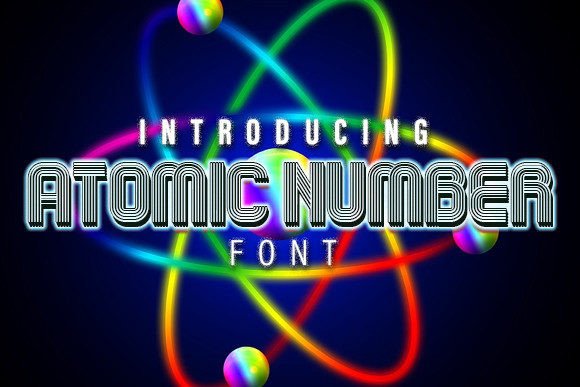
**Introducing Atomic Number: The Font That Will Electrify Your Designs**
Prepare to be mesmerized by Atomic Number, a retro typeface that exudes an electrifying charm. Whether you're crafting captivating posters, eye-catching flyers, or bold banners, Atomic Number is the spark that will ignite your designs.
With its vintage aesthetic and unmistakable style, Atomic Number transports you to an era of scientific exploration and discovery. Each character radiates a nostalgic glow, reminiscent of classic science fiction novels and retro-futuristic gadgets.
**Ignite Your Imagination with Atomic Number**
Step into a realm of limitless creativity with Atomic Number. This font is the perfect companion for:
* **Science enthusiasts:** Captivating readers with scientific articles, posters, and presentations.
* **Designers:** Adding a vintage touch to logos, branding, and marketing materials.
* **Educators:** Creating visually engaging lesson plans, presentations, and worksheets.
* **Bloggers:** Electrifying blog posts with eye-catching headlines and compelling text.
* **Social media enthusiasts:** Crafting share-worthy graphics and engaging posts that leave a lasting impression.
**Why Choose Atomic Number?**
* **Timeless appeal:** Atomic Number's retro charm transcends time, making it a versatile font for a wide range of projects.
* **Attention-grabbing style:** Its unique character design commands attention and leaves a lasting impact.
* **Easy to use:** Effortlessly integrate Atomic Number into your designs with its user-friendly format.
* **Endless possibilities:** Let your imagination soar and explore the countless creative possibilities that Atomic Number offers.
**Empower Your Designs with Atomic Number**